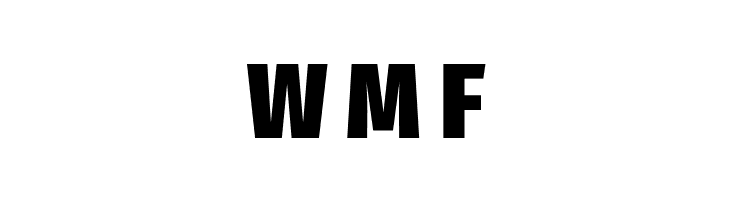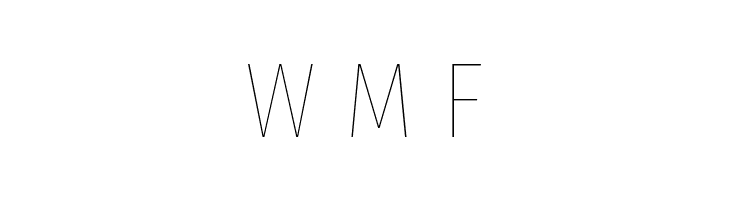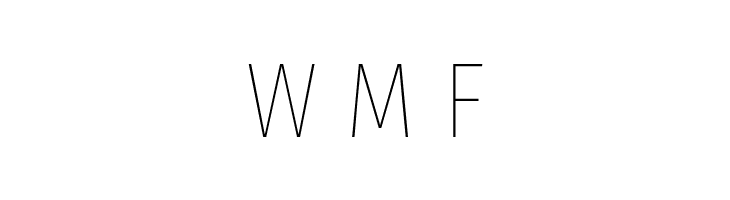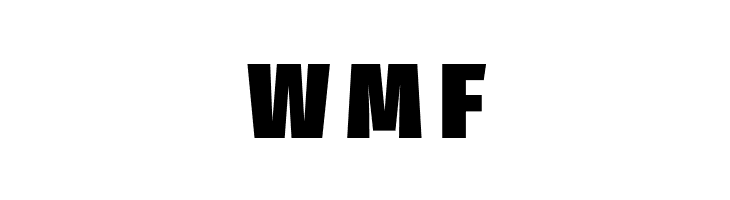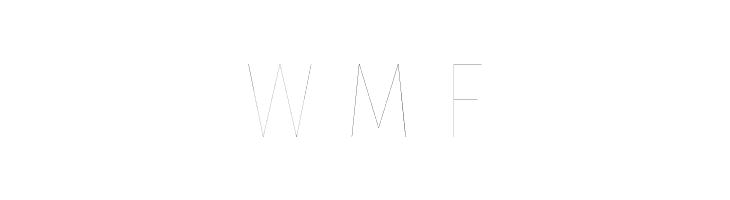
A modern, condensed sans-serif font with a clean and minimalist design.
A modern, ultra-light, condensed sans-serif font with a sleek and minimalistic design.
A bold, condensed sans-serif font with a strong and modern appearance.
A modern, condensed sans-serif font with a light weight and minimal contrast.
A modern, condensed sans-serif font with medium weight and excellent readability.
A modern, condensed sans-serif font with excellent legibility and balance.
A modern, condensed sans-serif font with semi-bold weight, ideal for clear and space-efficient designs.
A modern, thin, and condensed sans-serif font with clean lines and elegant proportions.
A modern, condensed sans-serif font with uniform stroke width and geometric influence.
A bold, condensed font with a modern and impactful style.